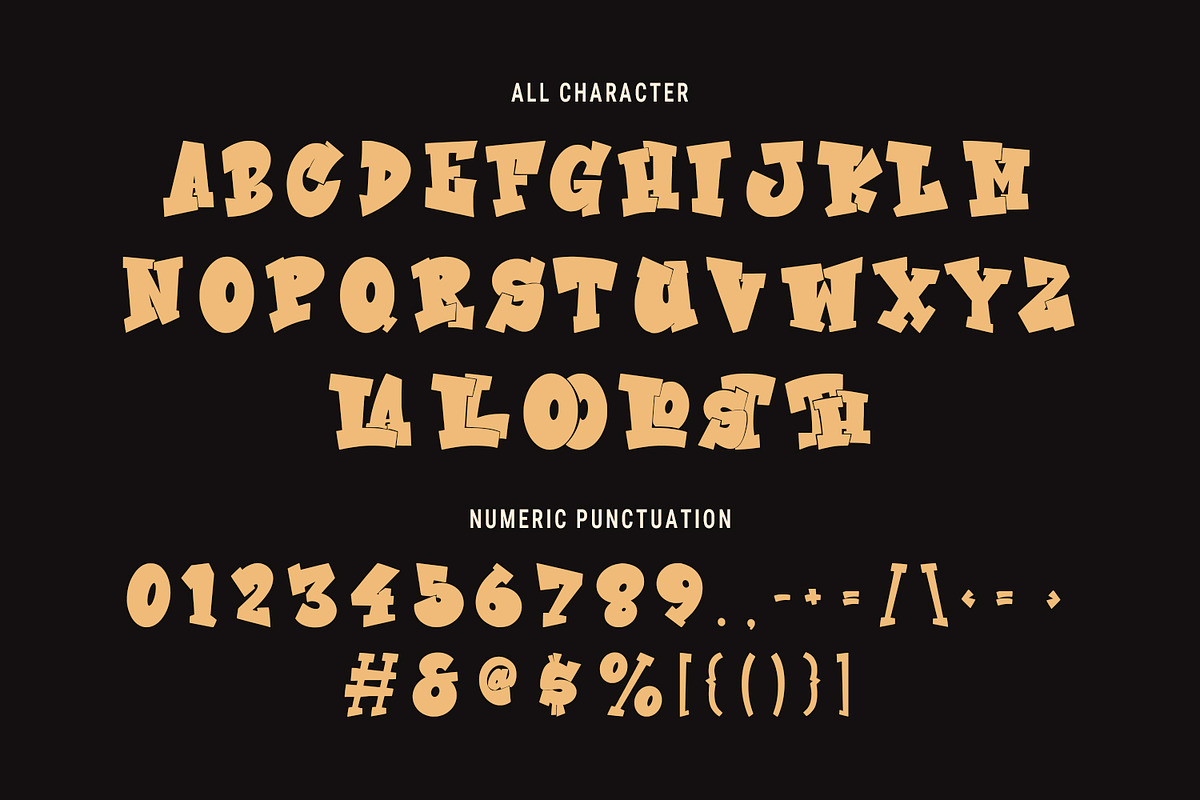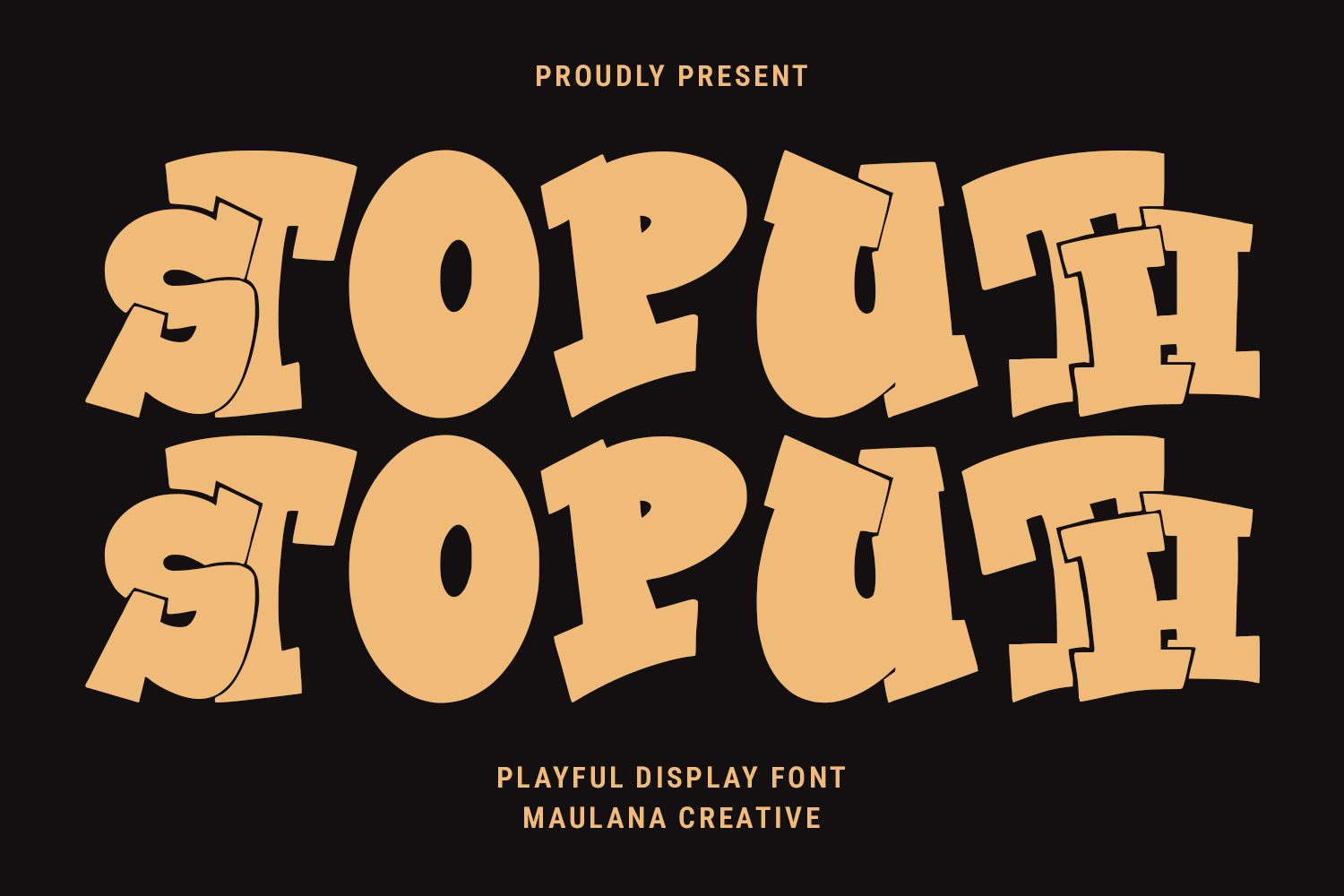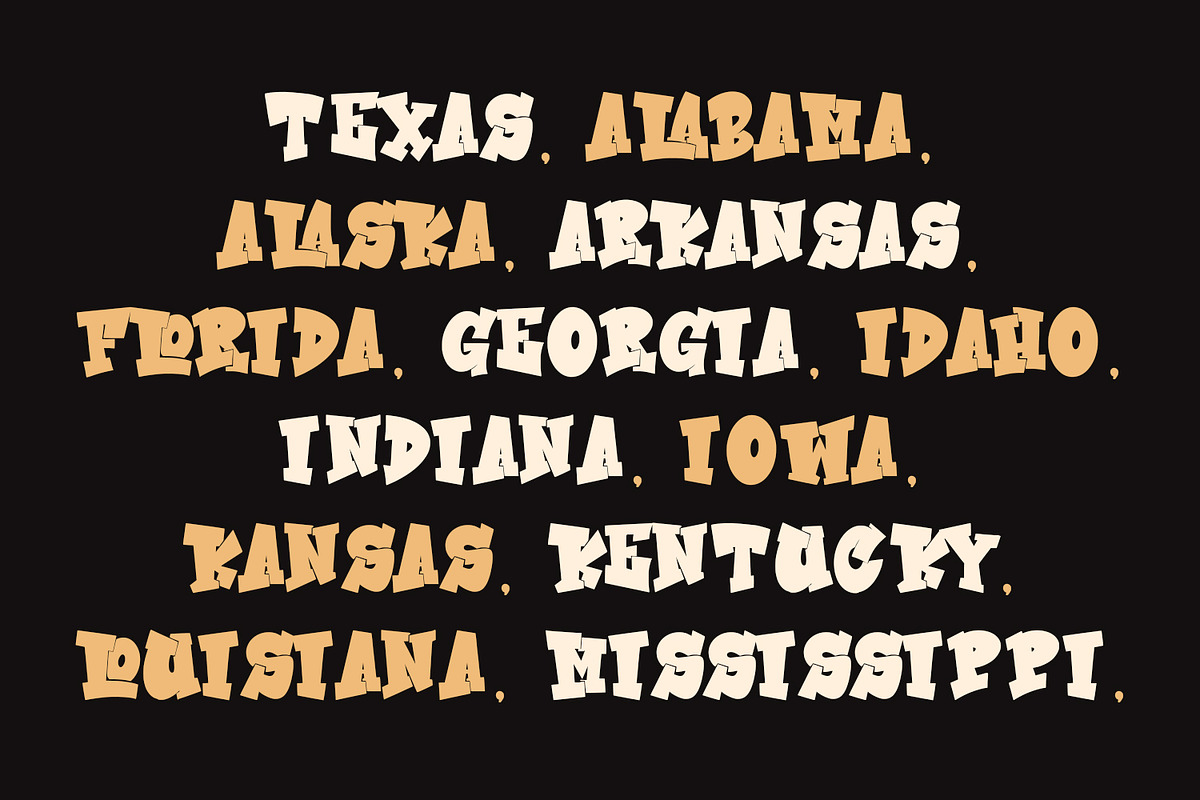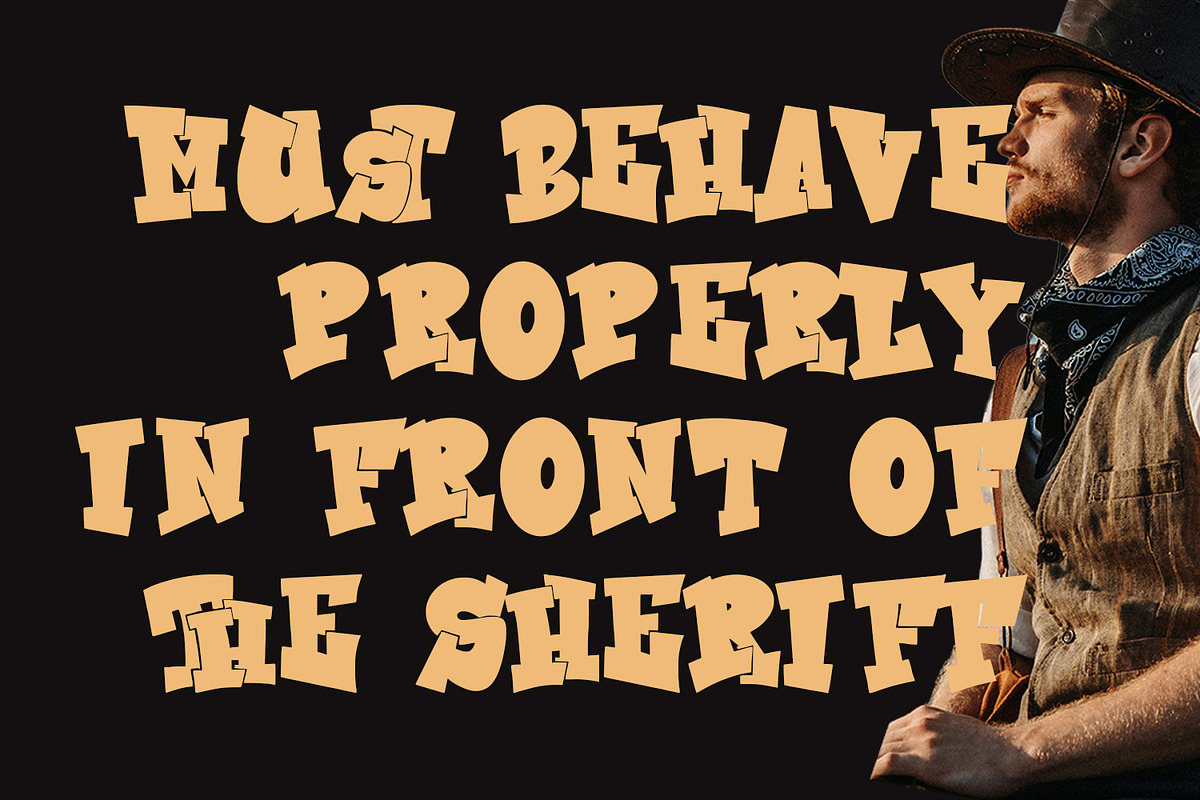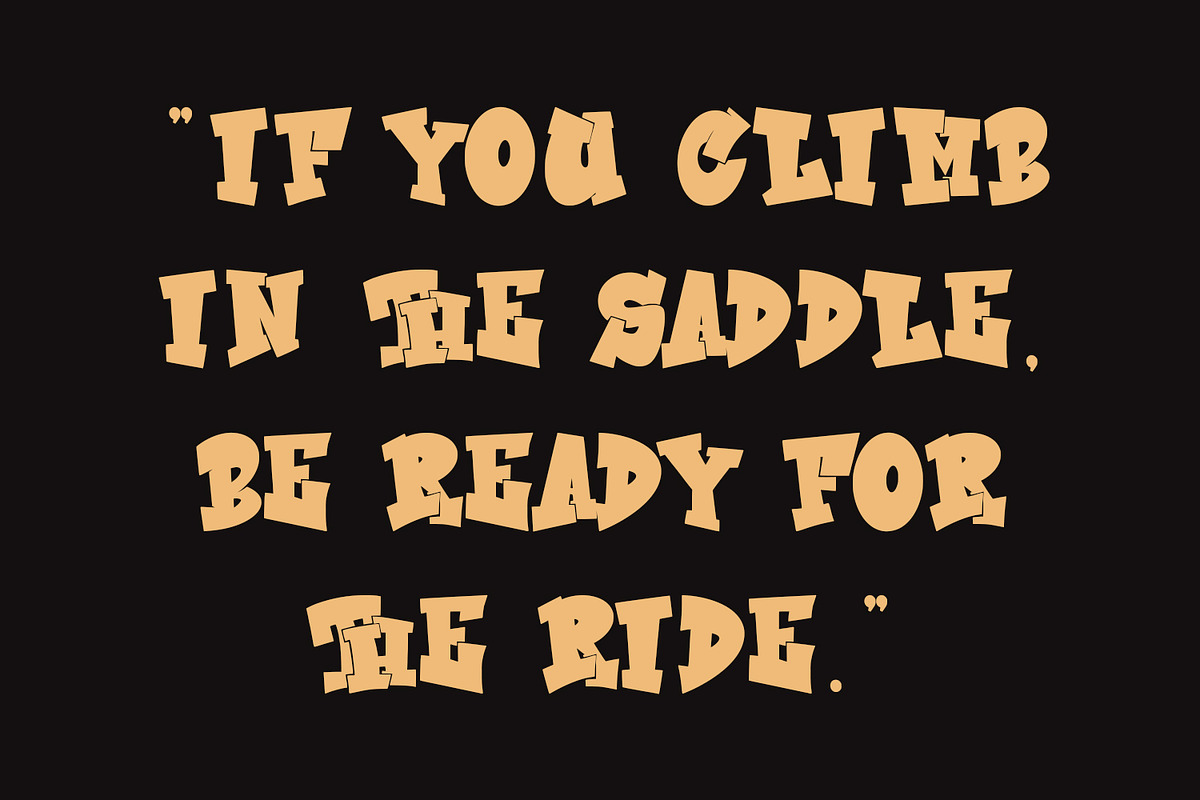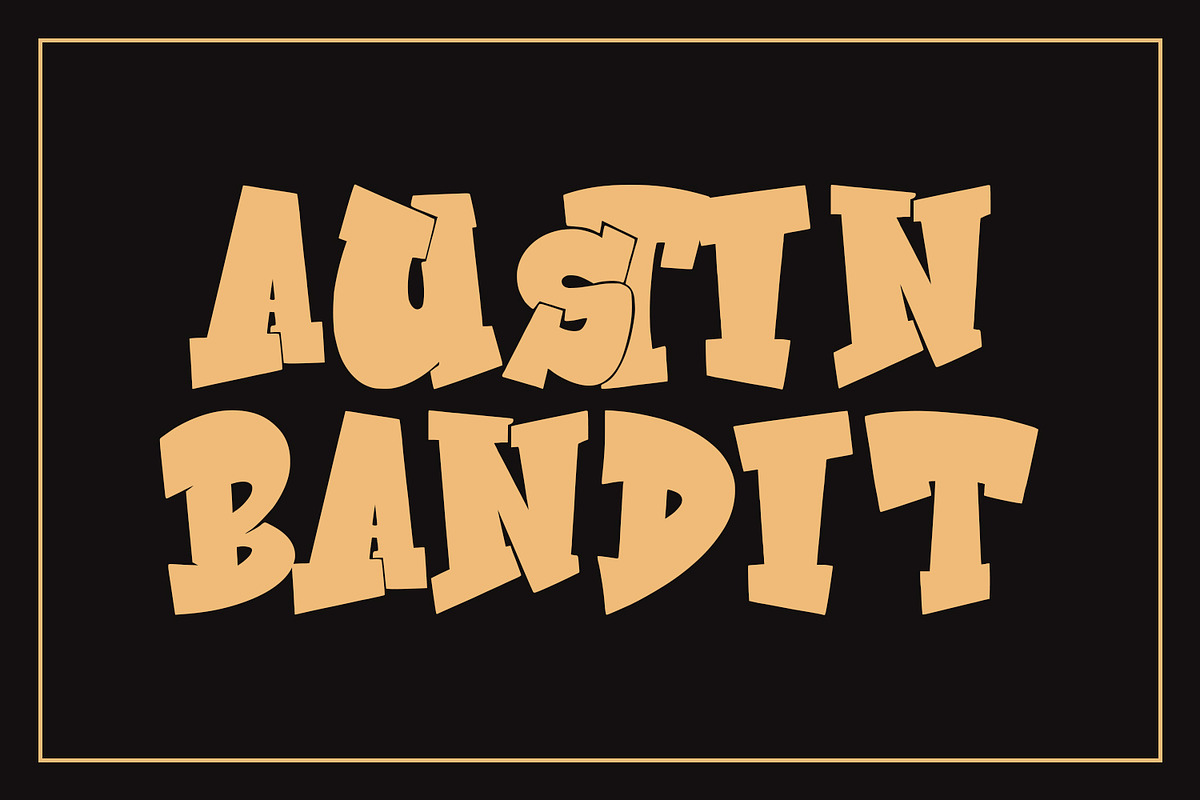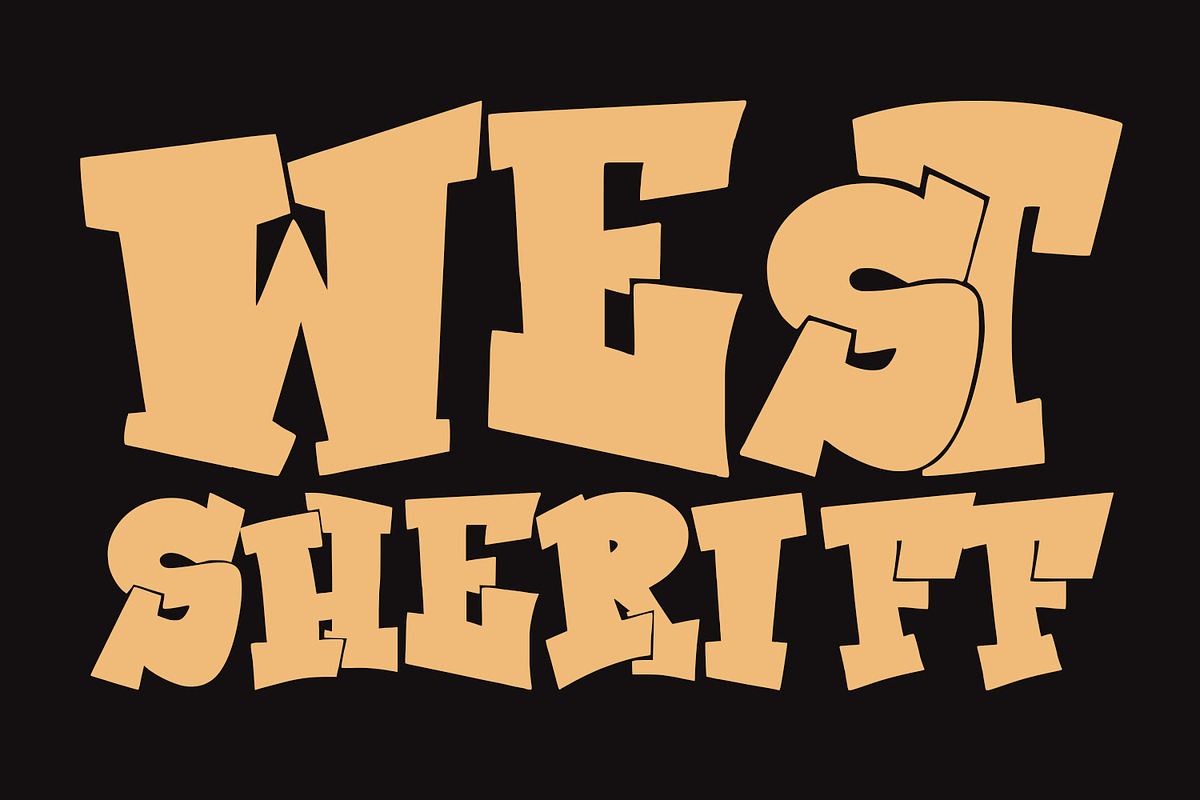
Stoputh Playful Display Font
Stoputh is a playful serif display font. With bold stroke, fun character with a bit of ligatures to give you an extra creative work. Stoputh font support multilingual more than 100+ language. This font is good for logo design, Social media, Movie Titles, Books Titles, a short text even a long text letter and good for your secondary text font with sans or serif. Make a stunning work with Stoputh font.